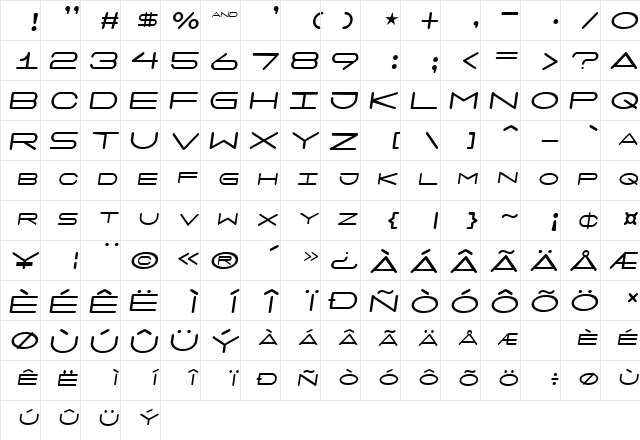
7 days oblique Regular
Design Context for 7 days oblique Typeface
7 days oblique takes a measured approach to typography — its balanced proportions and neutral character make it a reliable workhorse for both digital and print work. The slanted form adds forward momentum and visual energy.
Pro Tip: Try 7 days oblique for annotation and caption copy alongside an upright companion — the contrast in angle creates a dynamic but ordered typographic system.